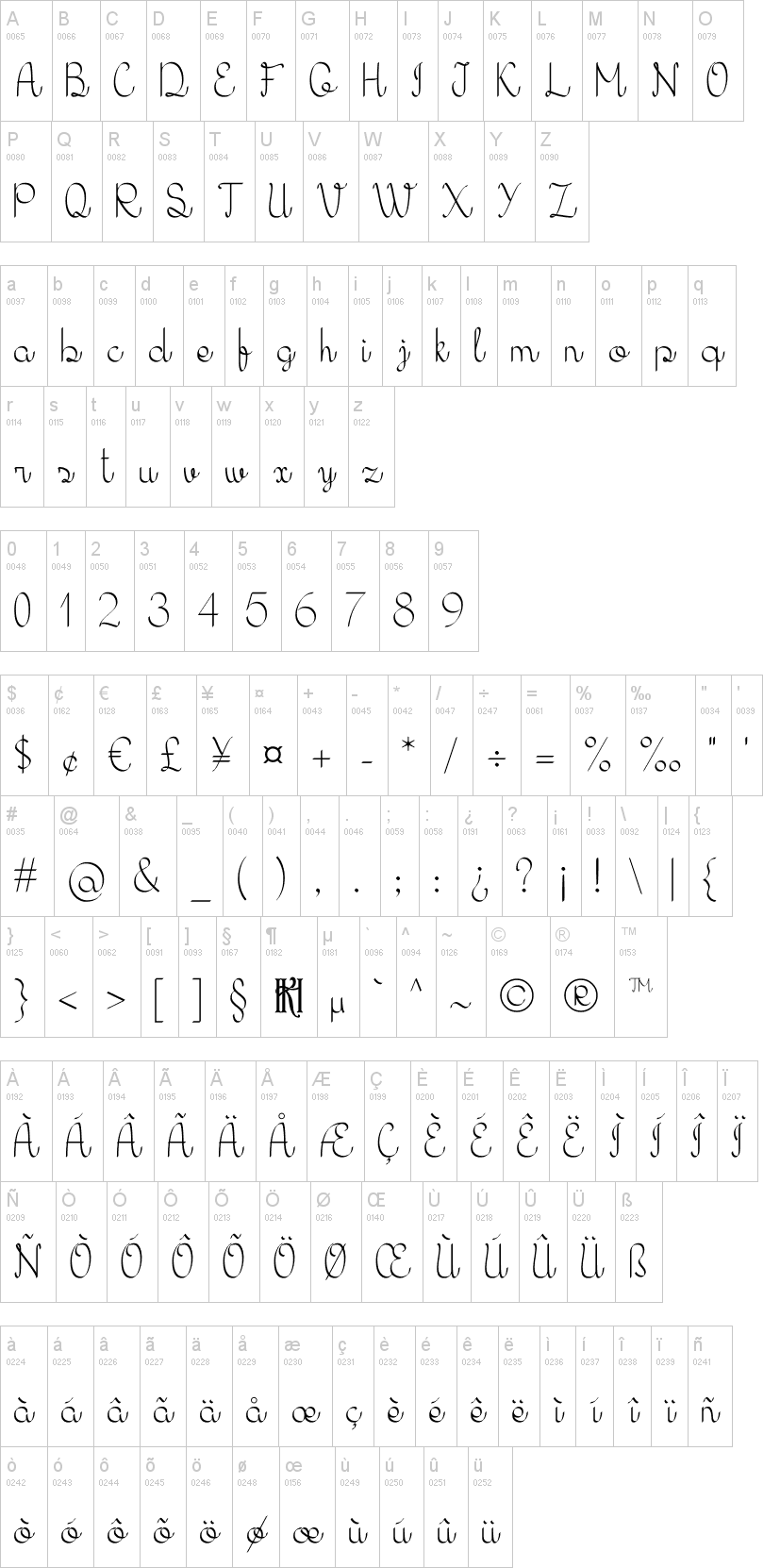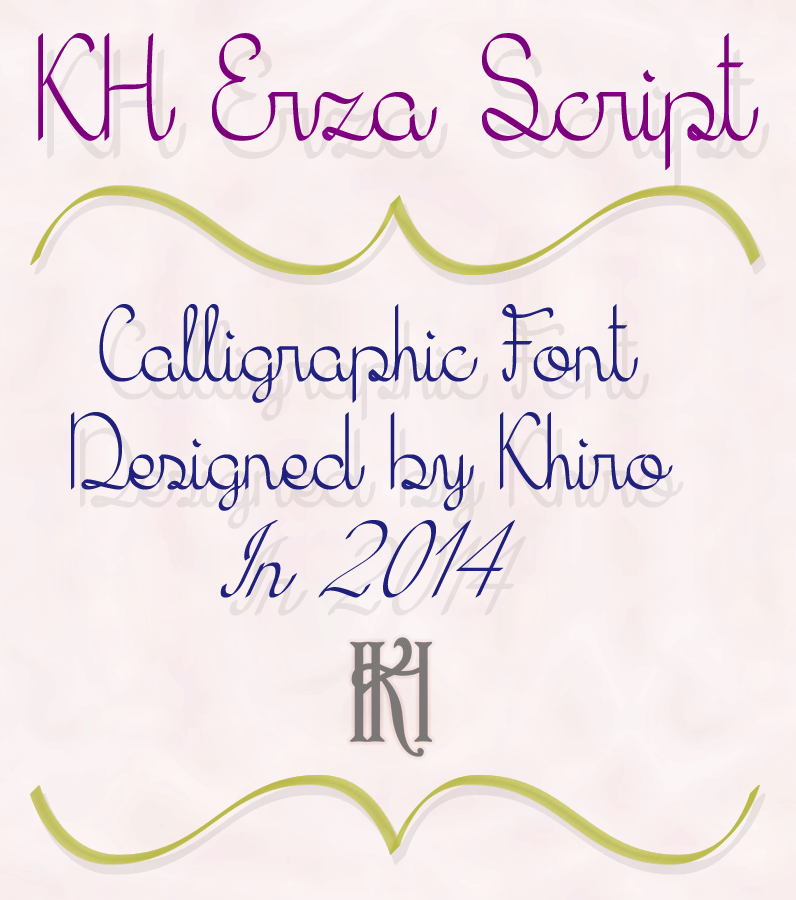
KH Erza Script Italic.otfNote of the authorKH Erza Script is a Calligraphic font designed by Khiro.
Note: It's better you avoid using this font in phrases (sentences) or long words which is written in UPPERCASE.